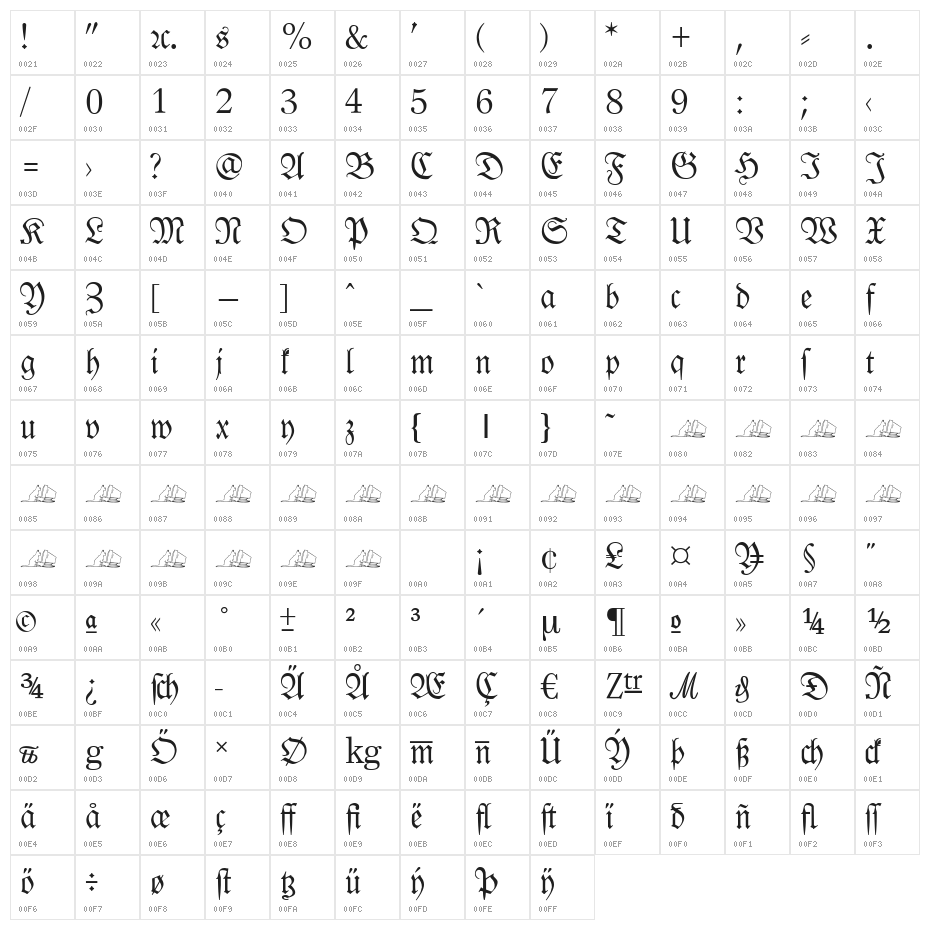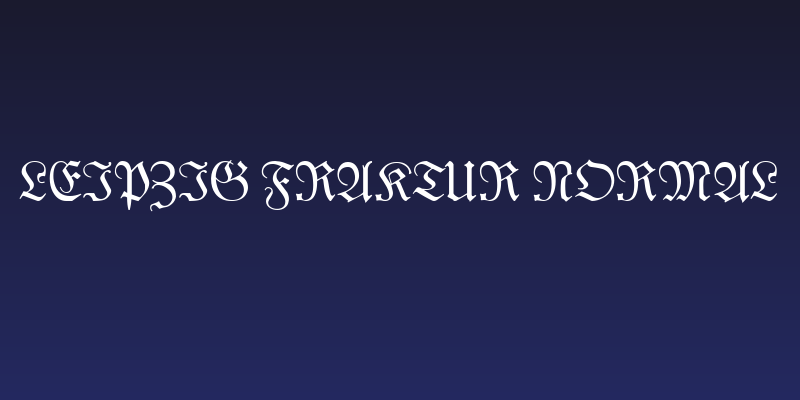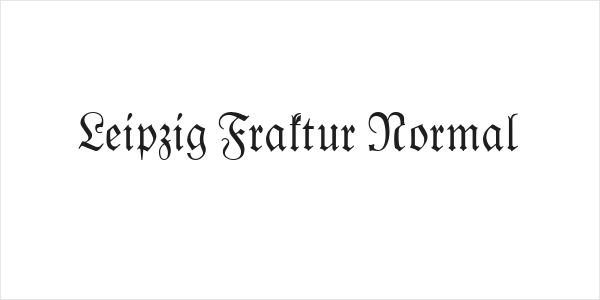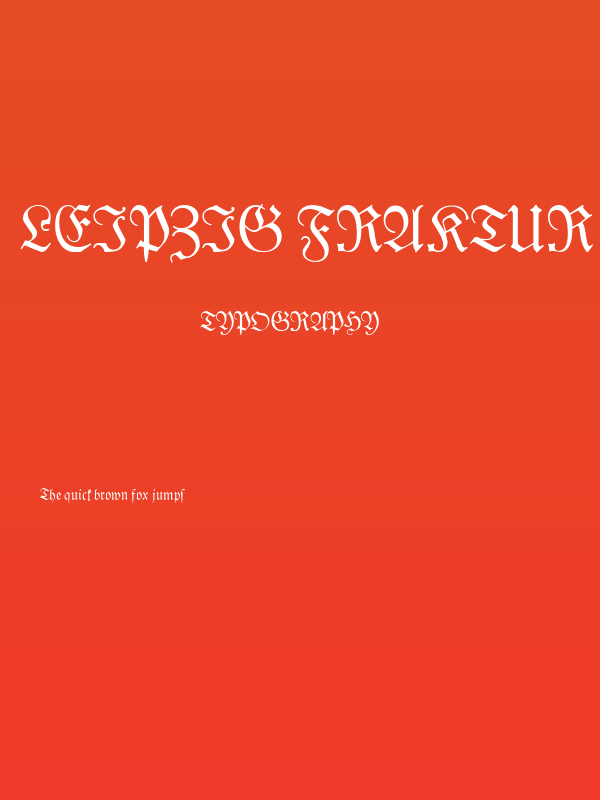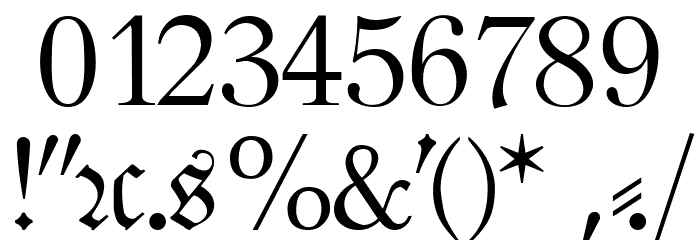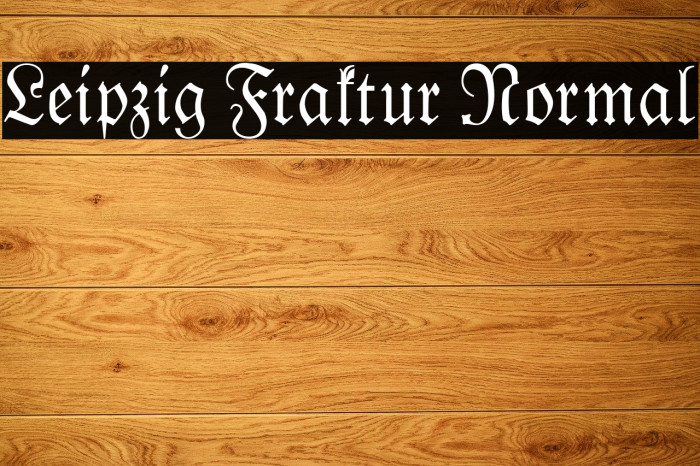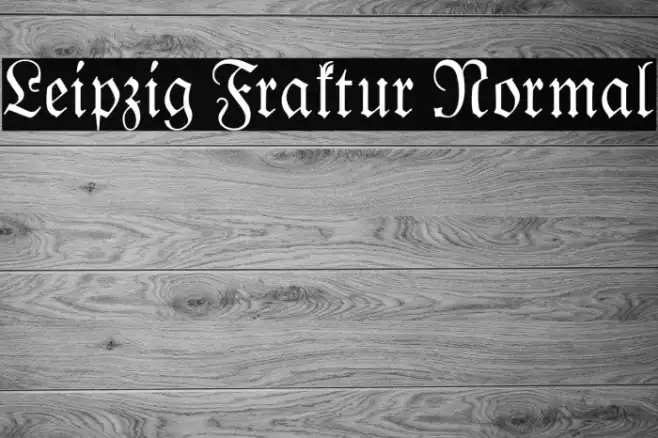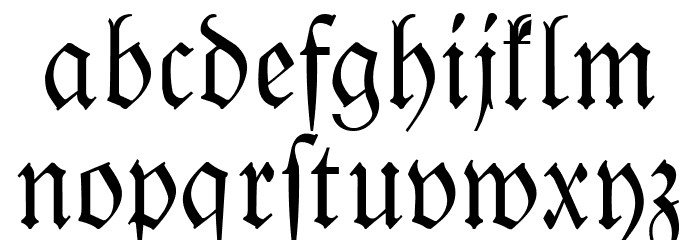
Leipzig Fraktur Normal Font
Leipzig Fraktur Normal Description
This font embodies the traditional elegance of blackletter typography, characterized by its intricate and ornate letterforms. Each character features sharp, angular lines and elaborate curves, evoking a sense of historical sophistication. The uppercase letters are particularly striking, with their bold, dramatic presence, while the lowercase letters maintain a consistent style that complements the overall aesthetic. The numerals and special characters are crafted with the same attention to detail, ensuring a cohesive look across all text. This font is ideal for projects that require a touch of vintage charm and classical beauty.
| Use Case | Headlines, Logos, Decorative text |
| Proposed Projects | Ideal for historical documents, certificates, wedding invitations, and branding that requires a vintage or classical touch. |